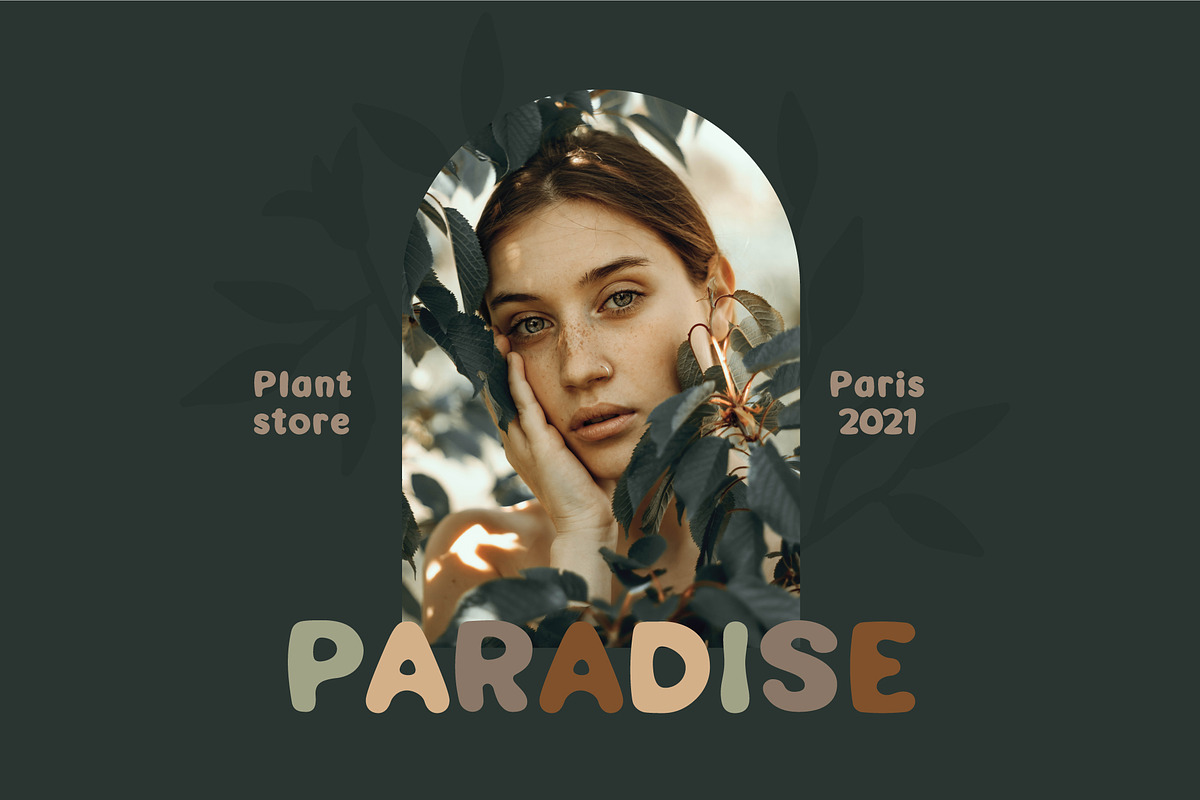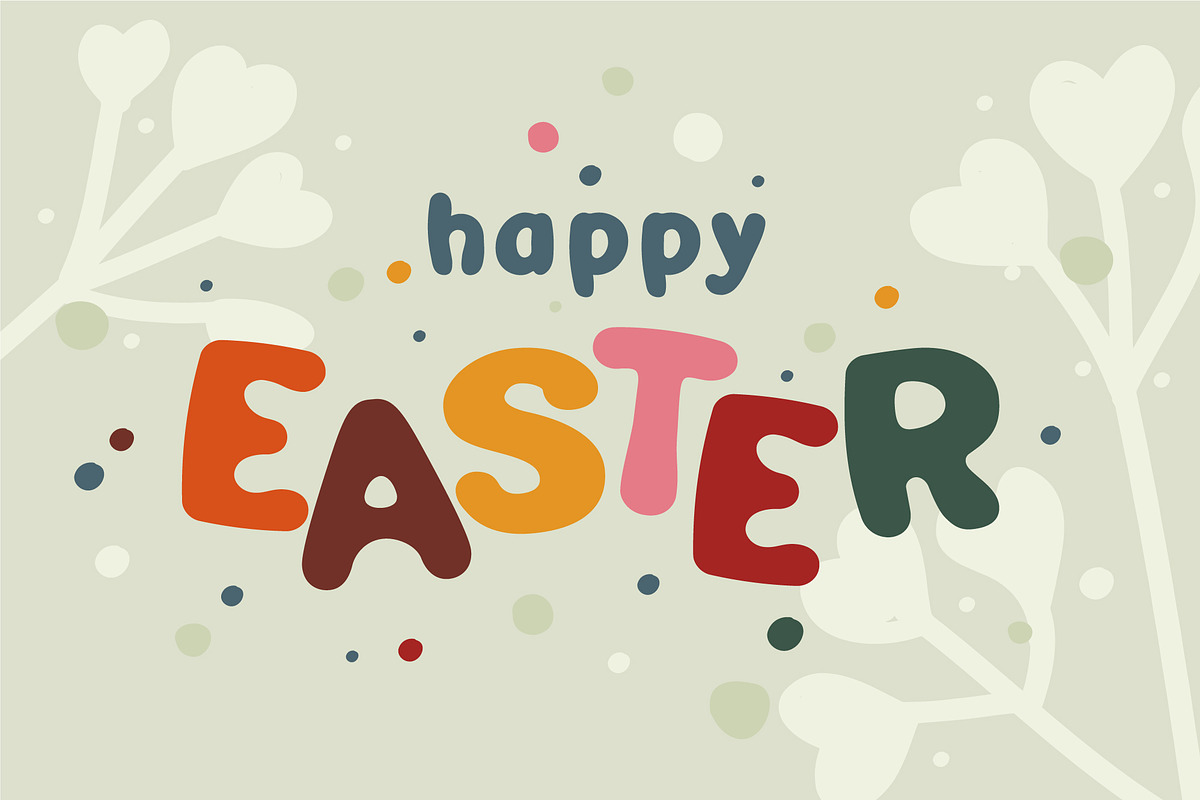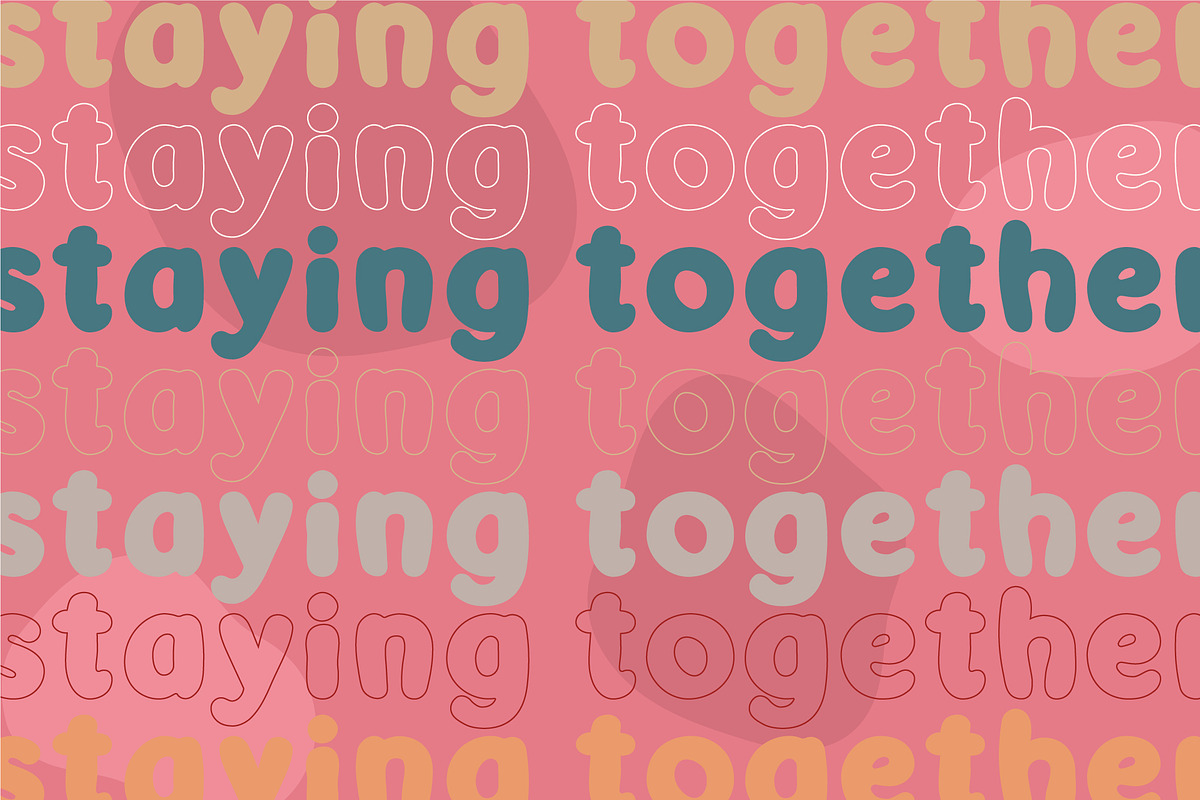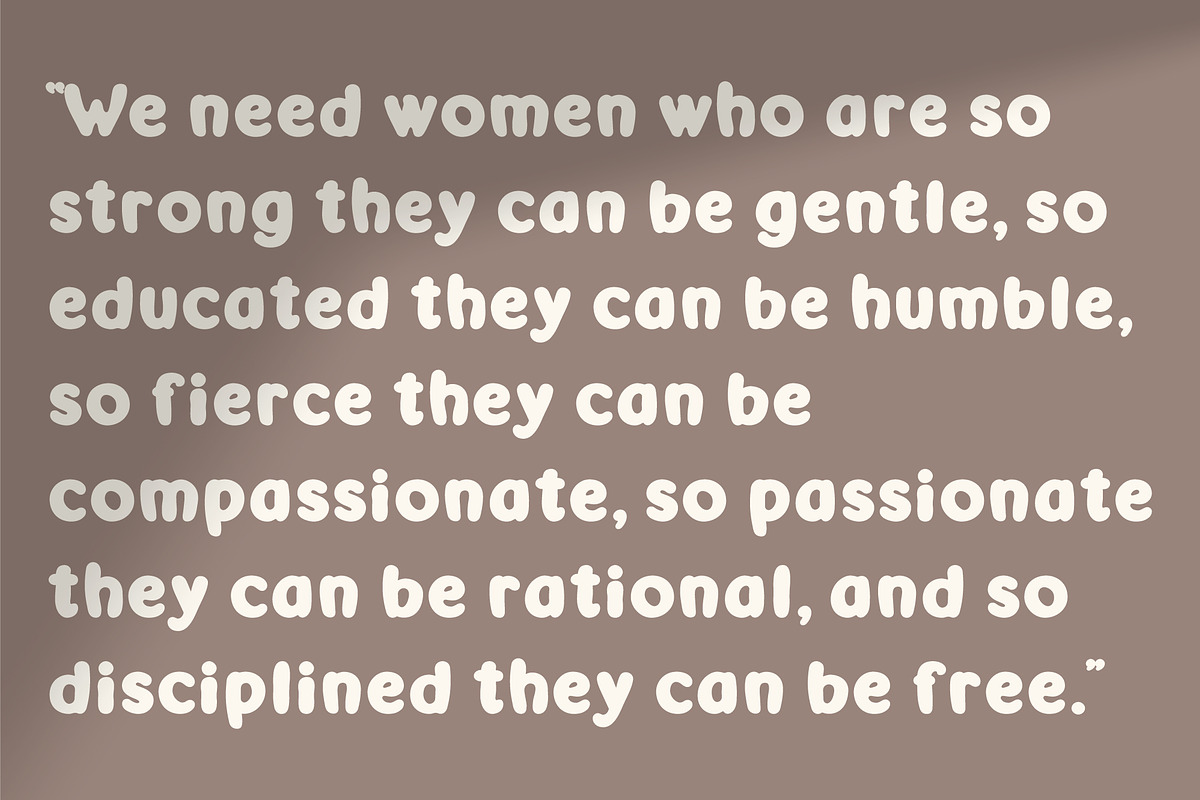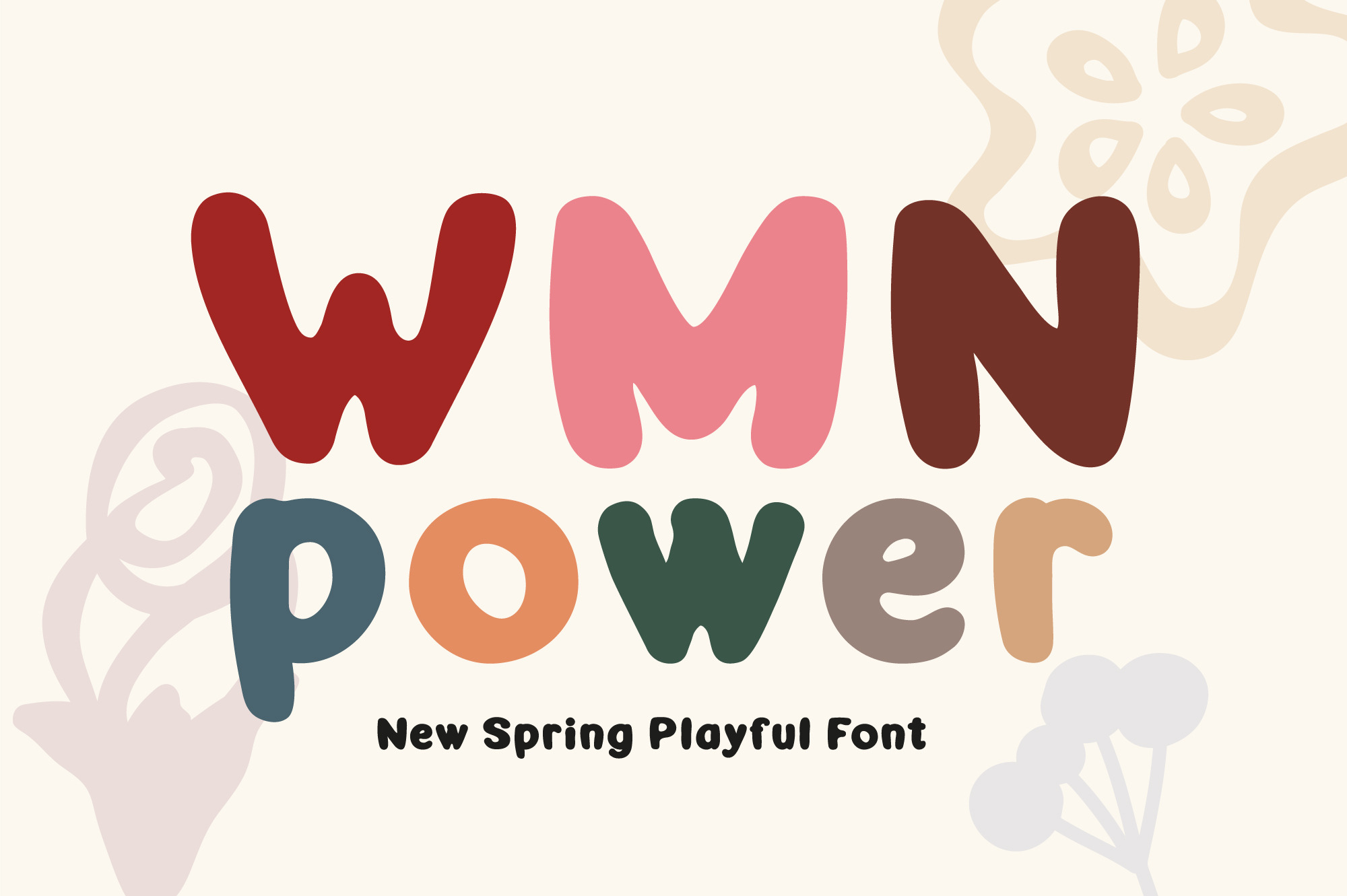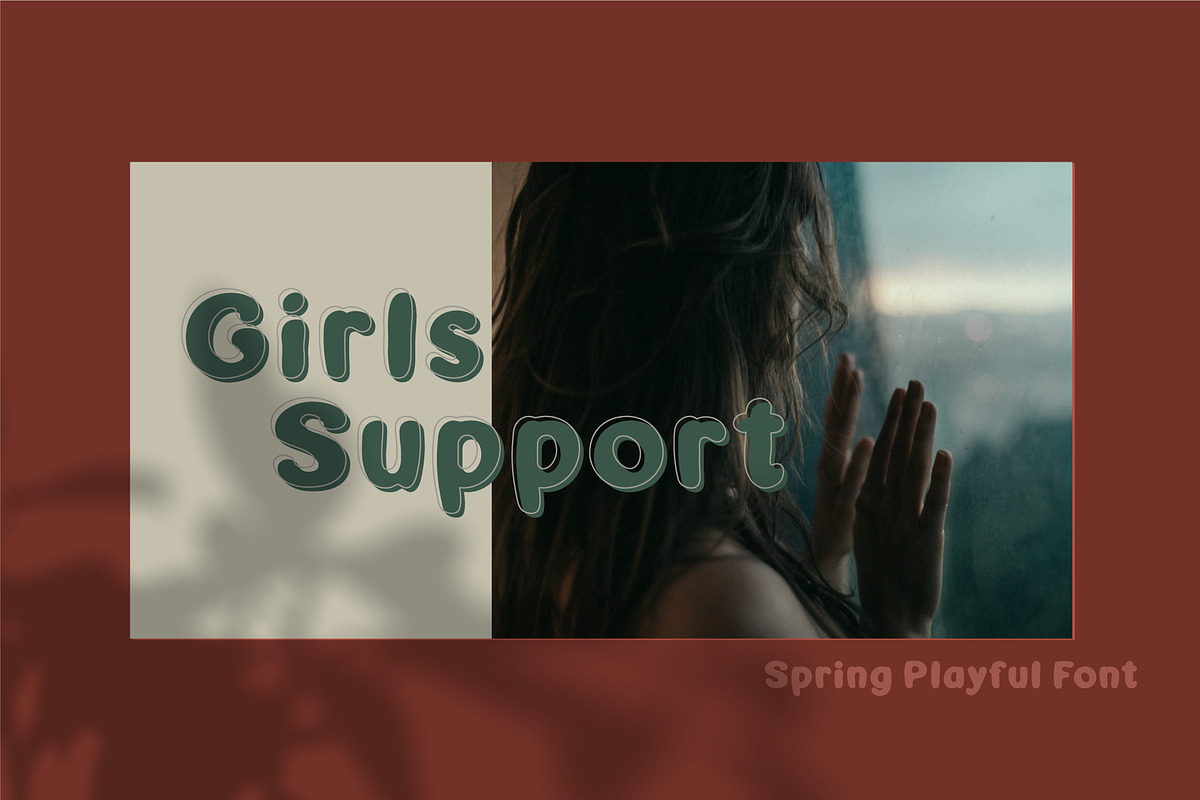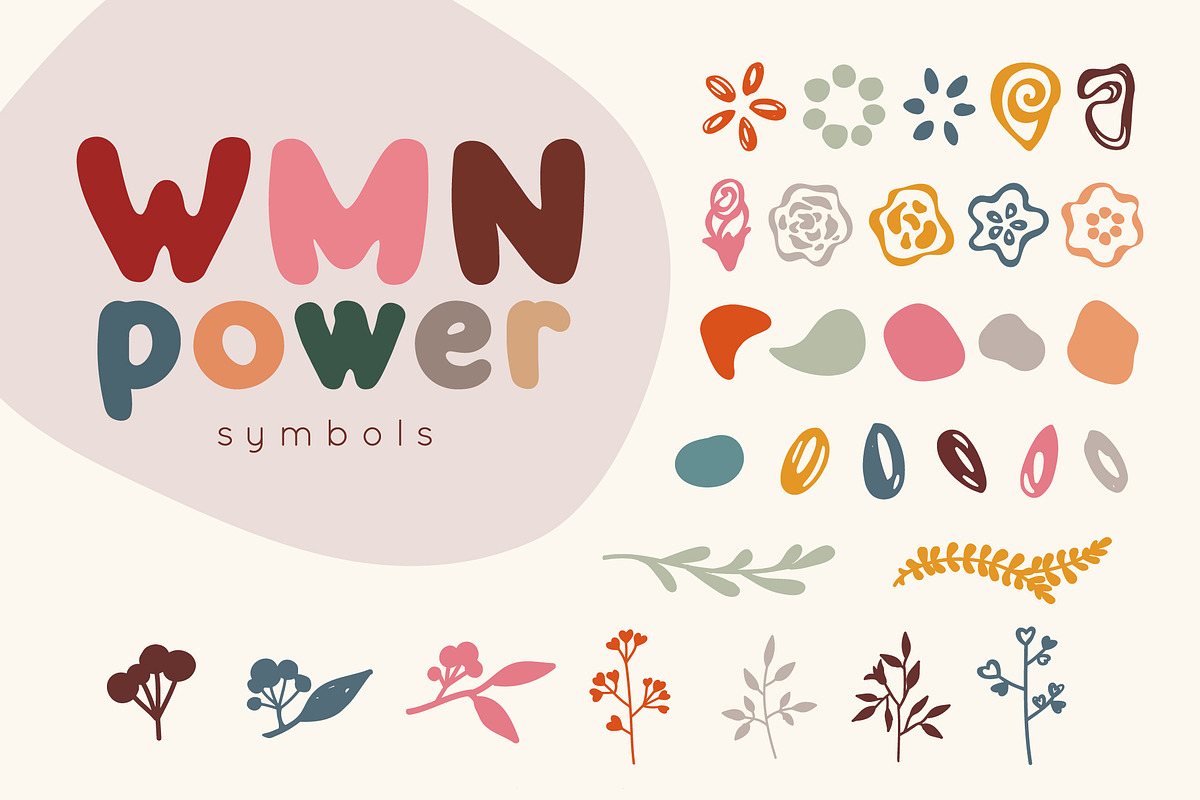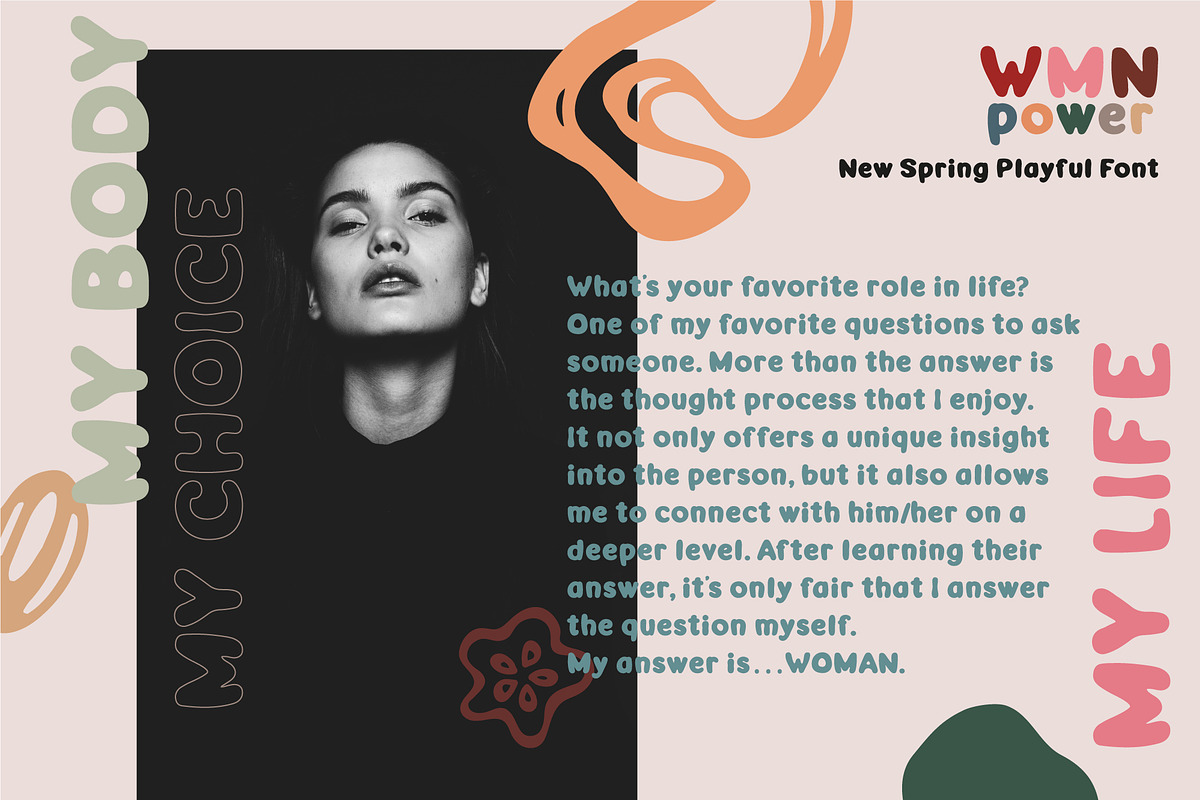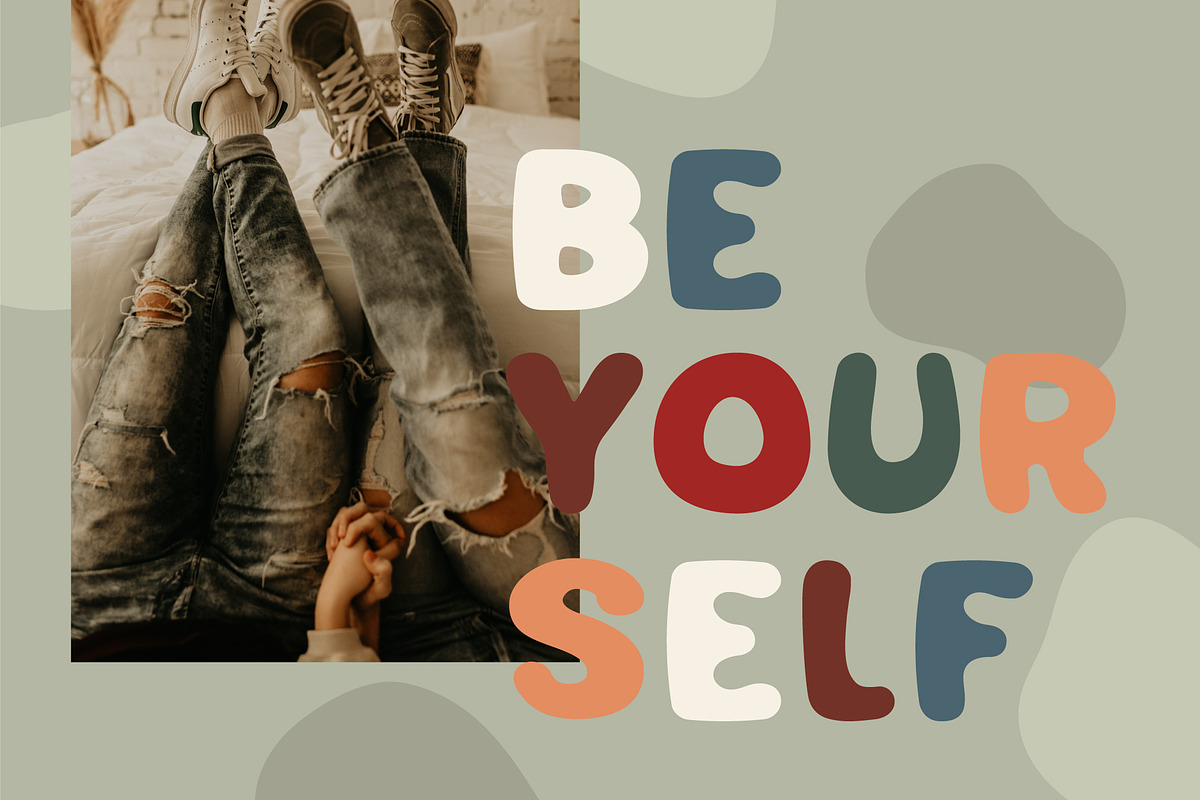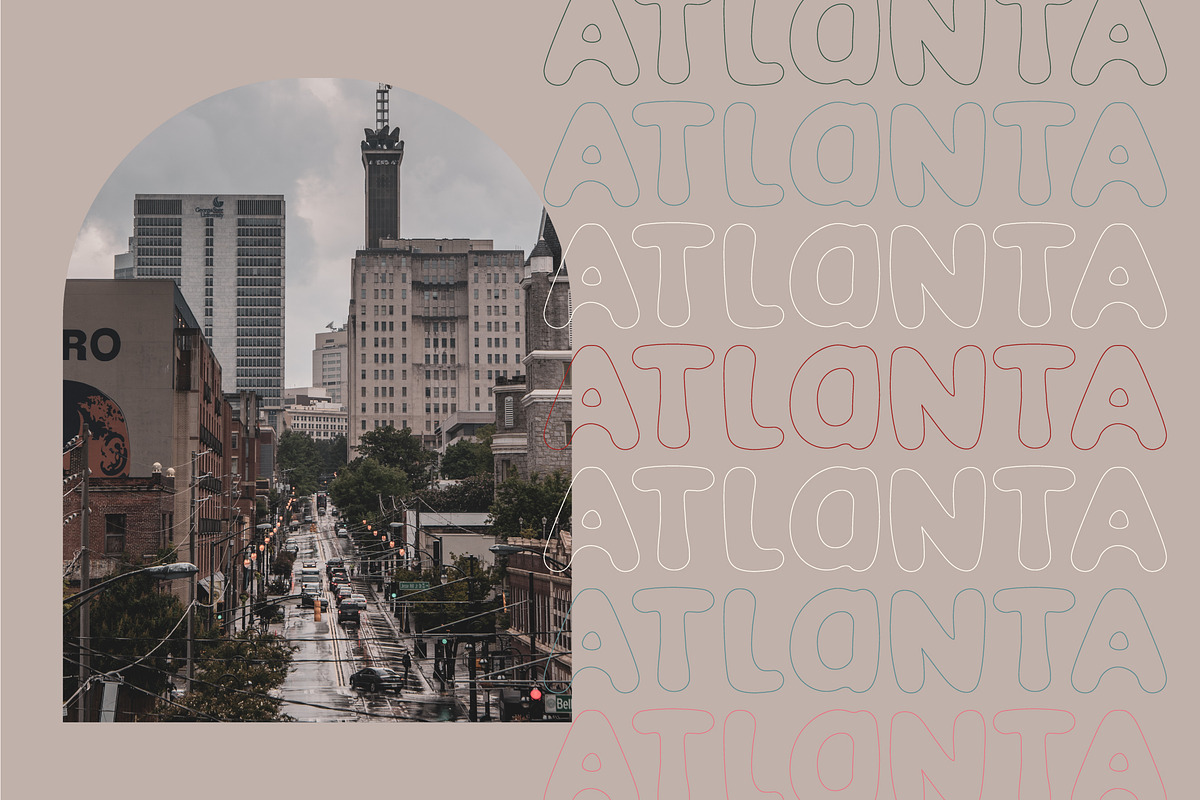
WMN Power | Spring Playful Font
WMN Power is a new spring playful font family with extras.
It will put a smile on your projects and will inspire you to create special typographical design. Special edition for International Women’s Day! It is perfect for headings, flyer, greeting cards, product packaging, book cover, printed quotes, logotype, apparel design, album covers, etc.
Just create the best design and make your projects cosy, funny, truly hand-painted realistic and natural.
WMN power hosts 3 OTF fonts of different styles:
- WMN power Regular
- WMN power Outline
- WMN power Symbols
WMN power font has uppercase and lowercase letters, alternates, hand-drawn extras, numbers & basic punctuation, multilingual support (French, German, Italian, Norwegian, Portuguese, Spanish, Swedish, Swiss German).